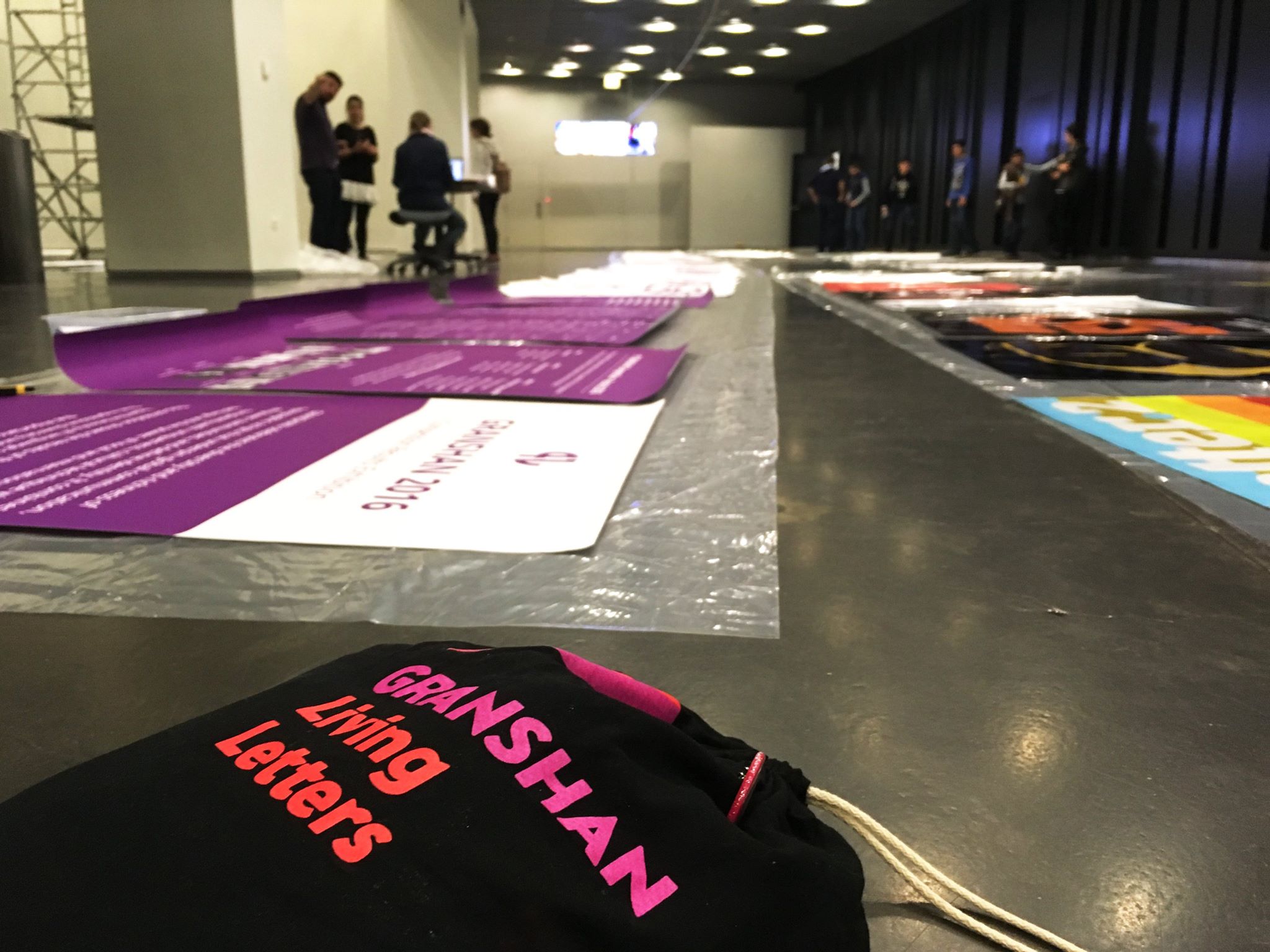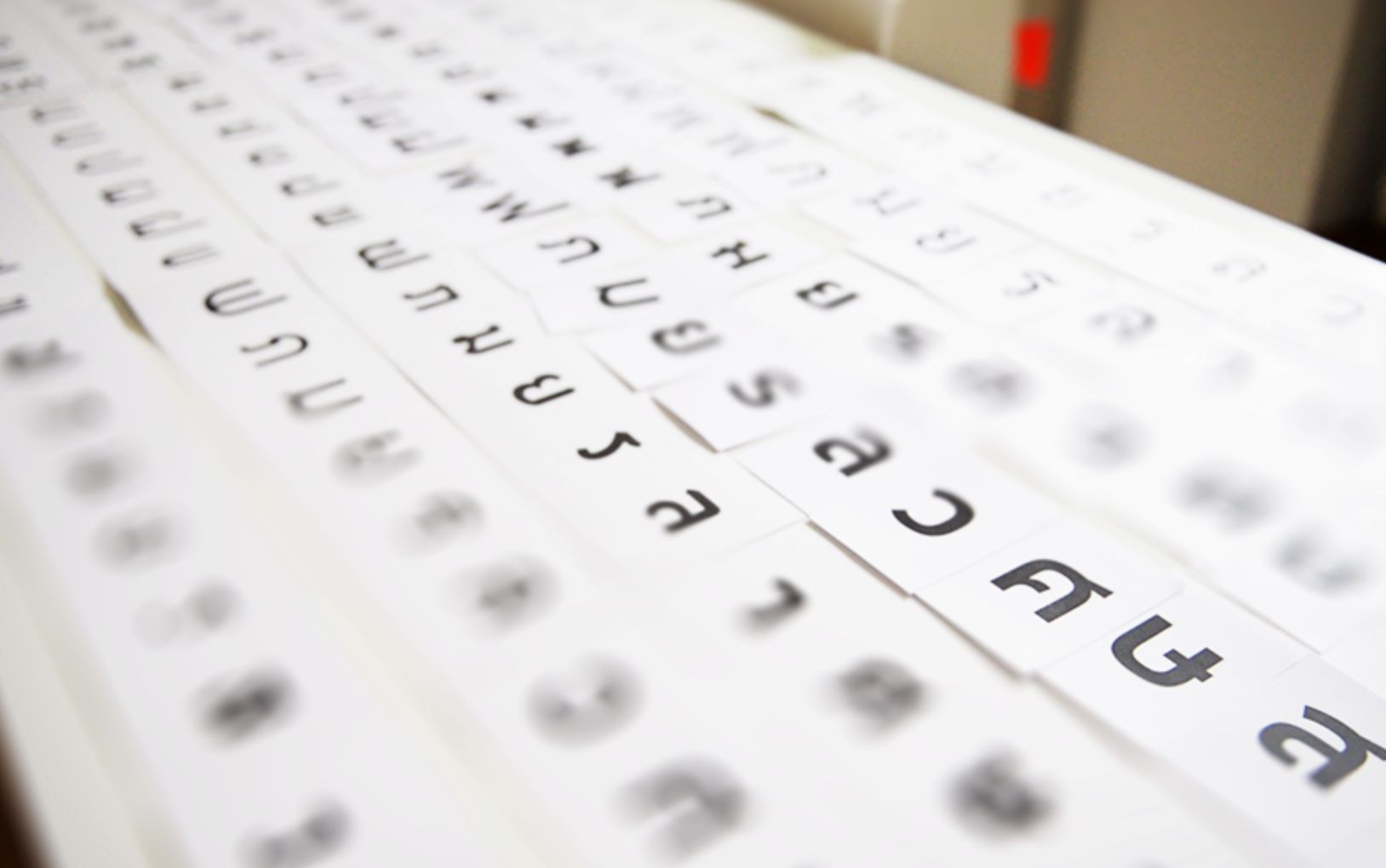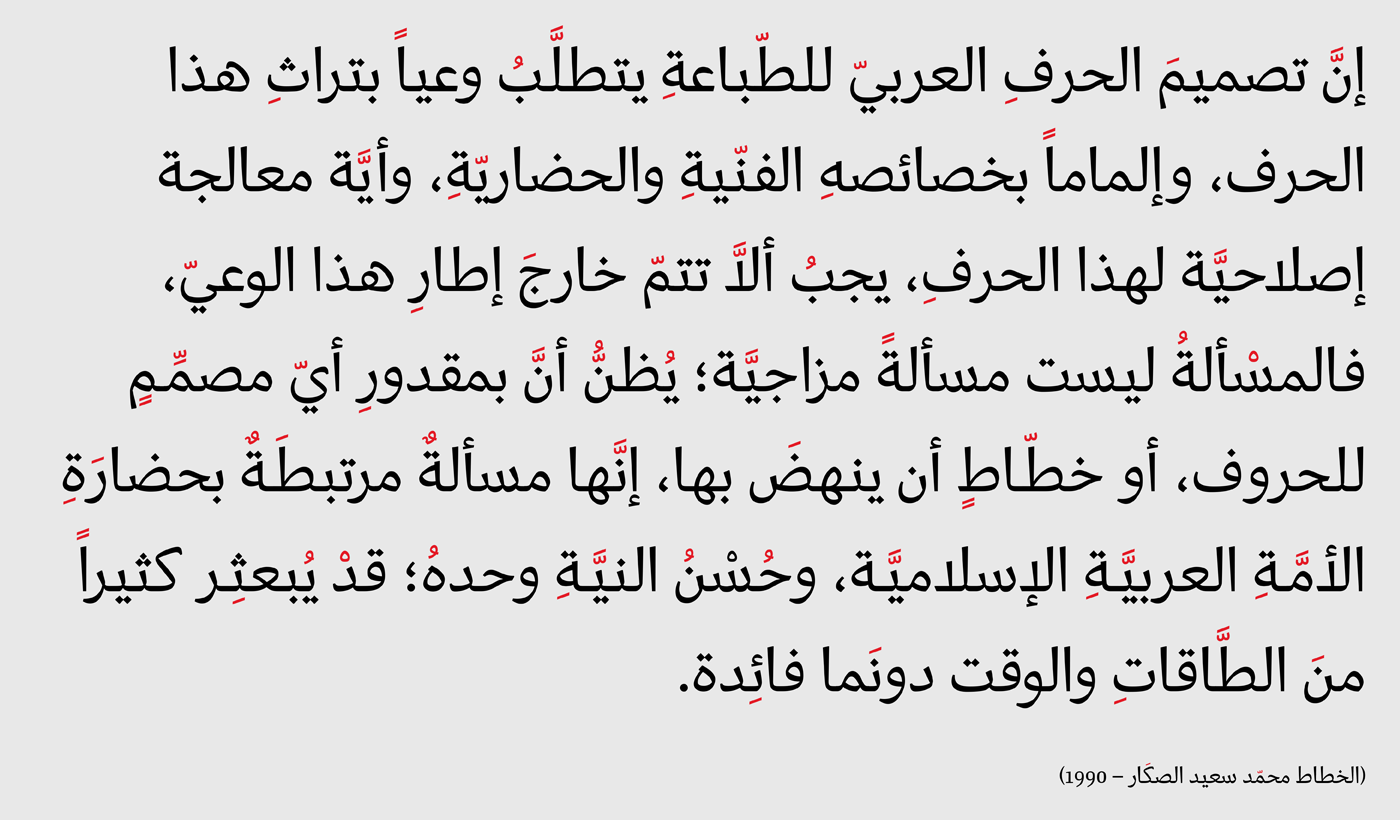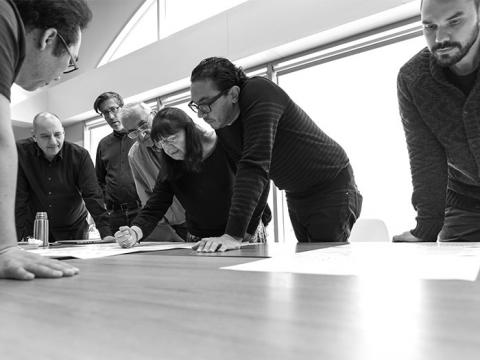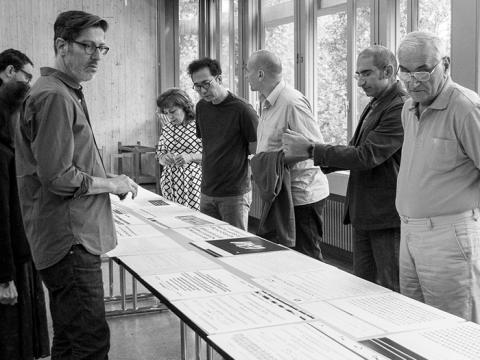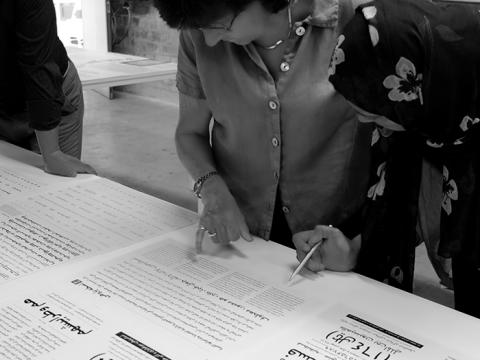
Non-Latin type design at its best: the 11th Granshan type design competition is open for entries
International font competitions – of which there are few – usually focus on Latin script. But small type foundries, global corporations and leading universities have all uncovered a secret. Promoting non-Latin typefaces opens up enormous economic potential and fantastic design opportunities and Granshan non-Latin type competition is ready to bring into the limelight the best of the best aka the most notable typefaces for individual non-Latin scripts as well as multiscript families and it all started exactly eleven years ago.
Back then, in 2008, the Armenian Ministry of Culture founded a national type competition yet that was just the beginning. One year later, in 2009, when the Typographische Gesellschaft Muenchen e.V. (tgm; Typographic Society Munich) visited Armenia in 2009 a new organisation was born and just like that, a local idea became a fine typographic affair of global and diverse proortions. Ever since 2010 both institutions organize the type contest together building a hub for global visual identity.
Every year the winning entries of the competition which was founded by Edik Ghabuzyan, leading Armenian type designer, and Boris Kochan, chairman of the type competition and the conceptional force behind the venue, are documented and presented in international exhibitions (e.g. in Alexandria, Moscow, Munich, St. Petersburg) and eventually Granshan (the Armenian word for script is) has evolved into GRANSHAN Type Design competition.
As the number of multilingual typeface developments has grown continuously in recent years with more and more non-Latin typefaces designed on the basis of Latin typefaces, the 11th Granshan type design competition is open for entries to find the most excellent non-Latin typefaces in the world.
“We are looking for the best Typeface Designs in nine script groups. Entries are possible in three categories to satisfy the wide range of multilingual typeface projects” notes Granshan and in this year's 11th Granshan Competition Jury more than 60 international, well-known script experts will judge the entries in a three-level-process.
For each script group, a minimum of three dedicated specialists will provide reviews of the submission with each script group moderated by a so-called script chair, who is also casting a vote and whose vote acts as a tie-breaker. To ensure continuity in the evaluation over the years, the script chairs are designated for several years and includes Prof. Fiona Ross (South Asian), Alexei Vanyashin (Cyrillic), Liu Zhao (Chinese), Gerry Leonidas (Greek), Angela Poghosova (Armenian), Adi Stern (Hebrew), Haytham Nawar (Arabic), Chang Sik Kim (Korean), Anuthin Wongsunkakon (Thai).
The script specialists are chosen collectively by the script chairs together with the chairmen. It includes experts such as John Hudson and Graham Shaw (South Asian), Panos Vassiliou and George Matthiopoulos (Greek), Vedran Erakovic and Kyrylo Tkachov (Cyrillic), Kamal Mansour and Bahia Shehab (Arabic).
Celebrating the diversity and richness of the typographic scripts that underpin global communication, empower communities, and enable identity is a task and Granshan type competition covers a growing range of scripts for communities on a global scale. From the most widely used, to scripts in use by small communities or those under threat, Granshan type competition gives the best excuse for all type designers, type foundries, and clients with custom typefaces from all parts of the world to be part of a non-Latin celebration in type design.
From the most widely used, to scripts in use by small communities or those under threat, Granshan type competition is all about the diversity and richness of the typographic scripts
Category A: non-Latin text and display typefaces
This category is reserved exclusively for non-Latin text or display typefaces, in one or more of the script groups listed below. Type designers and type foundries can submit the following scripts: Arabic Scripts (Arabic, Persian, Urdu), Armenian, Chinese (traditional or simplified), Cyrillic (Bulgarian, Russian, Serbian, Ukrainian, etc.), Greek, Hebrew, Korean, South Asian scripts (Devanagari, Bengali, Gurmukhi, Telugu, Tamil, Gujarati, Malayalam, Sinhala, etc.) and Thai.
Category B: non-Latin - Latin text typefaces
This category is designated for non-Latin text typefaces with a Latin version to be used in combination. This can be a Latin version newly developed together with the non-Latin part or a pre-existing design. In case of a new developed Latin version, the quality of the Latin will also be evaluated along with the quality of the non-Latin typeface. In any case, the interaction between the non-Latin and the Latin version will be rated.
Non-Latin scripts underpin global communication, empower communities, and enable identity
Typefaces from the nine script groups given above can be submitted. Note that in this category, display typefaces shall not be accepted. You can submit the following scripts: Latin with Arabic Scripts (Arabic, Persian, Urdu), Latin with Armenian, Latin with Chinese (tradional or simplified), Latin with Cyrillic (Bulgarian, Russian, Serbian, Ukrainian, etc.), Latin with Greek, Latin with Hebrew, Latin with South Asian scripts (Devanagari, Bengali, Gurmukhi, Telugu, Tamil, Gujarati, Malayalam, Sinhala, etc.), Latin with Korean and Latin with Thai.